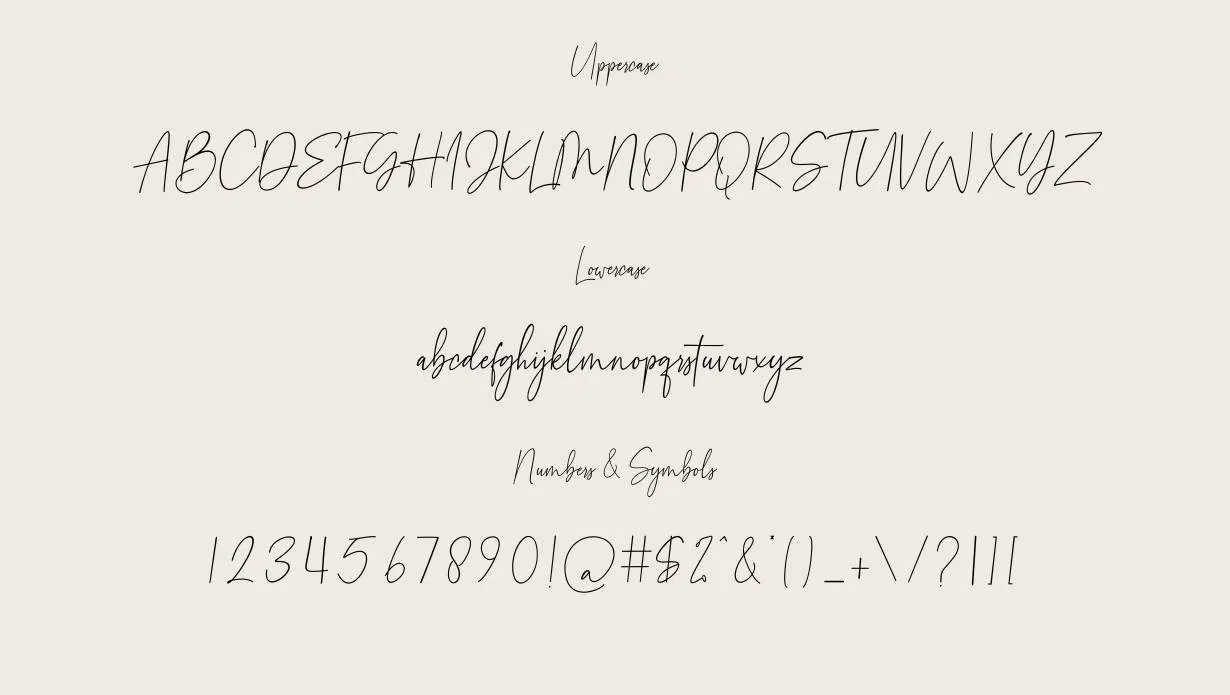
Blancha Font offers a clean and modern appearance, suitable for branding, editorials, and contemporary design projects. It typically supports file formats like OTF and TTF, ensuring ease of use across different design software.
This font’s sleek and contemporary style brings a touch of sophistication to any design, making it well-suited for modern and stylish projects. With its clean and polished look, Blancha Font adds a modern and professional edge to various design applications.